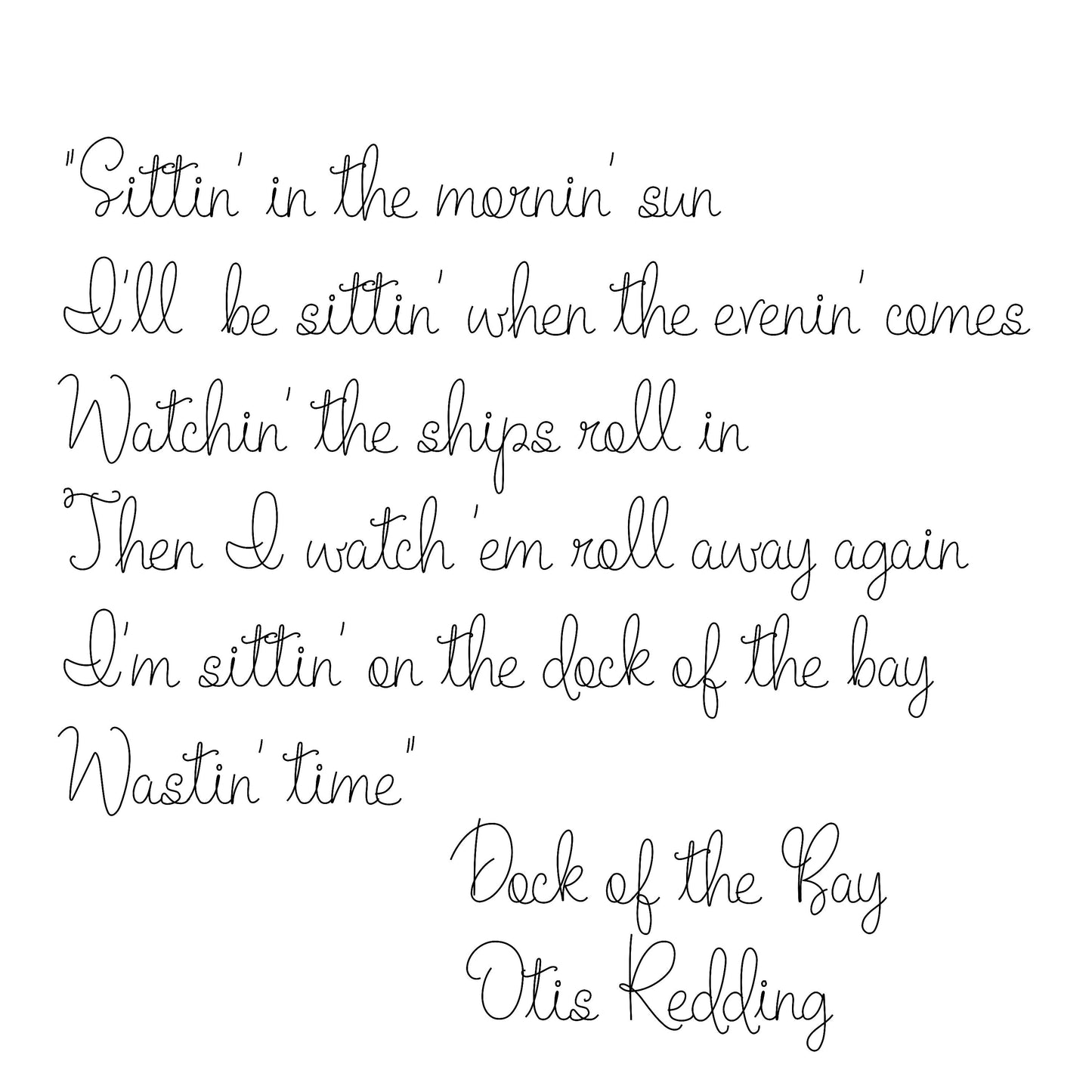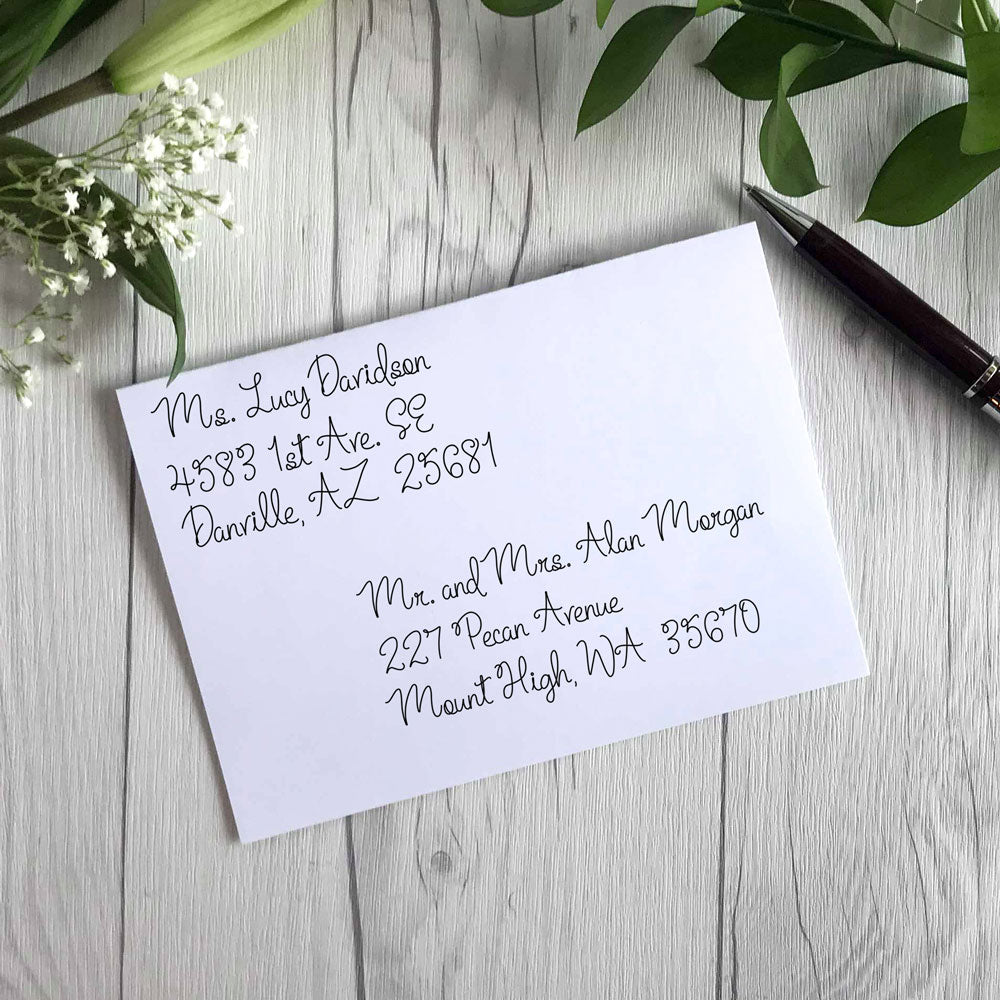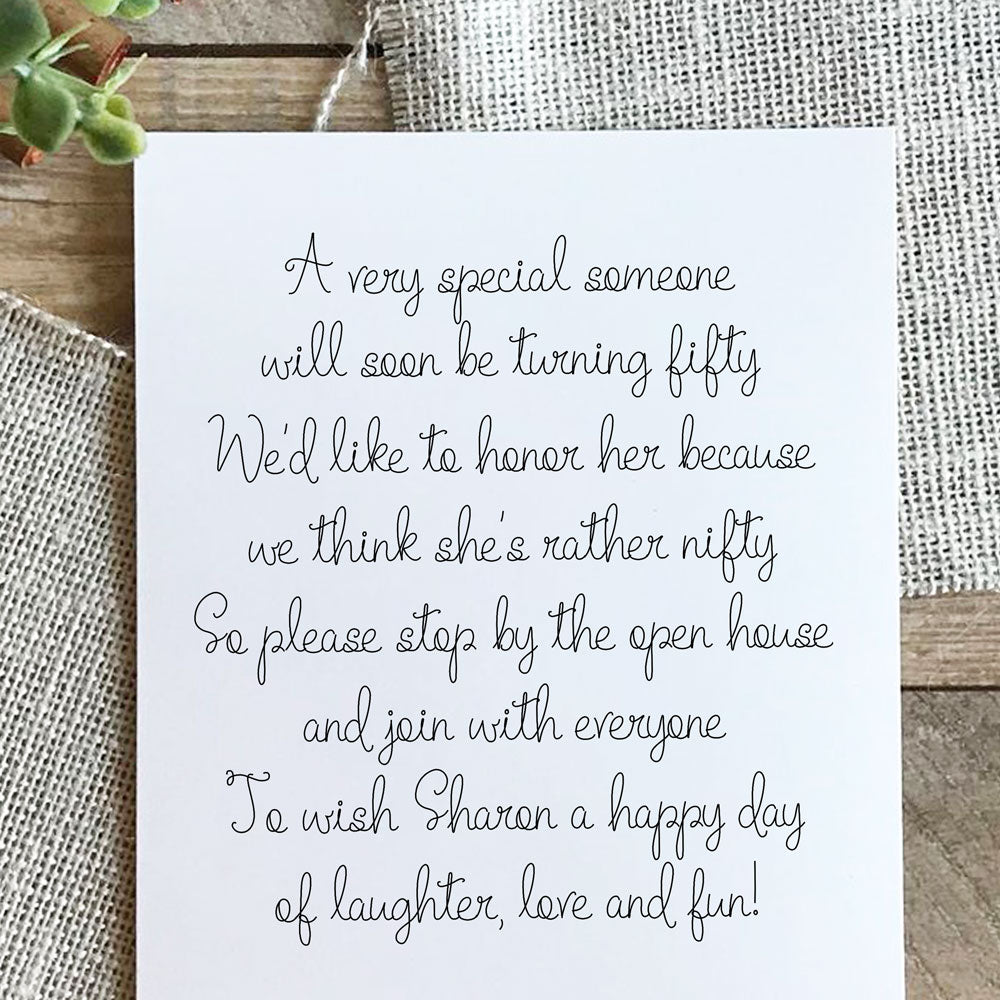
SLF Hand Lettered
A script font that looks like real hand lettering, this font is perfect for cards, foil quill projects, engraving on jewelry, and anywhere you need a personal touch that looks realistic and classy.